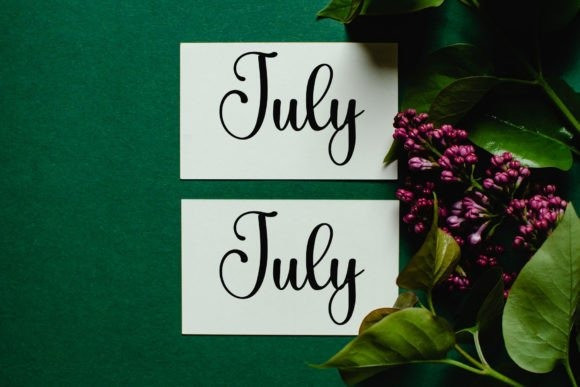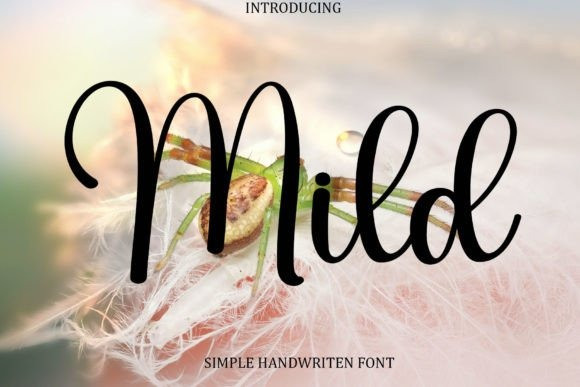
Mild Script Font
Mild Script Font, is a sweet and beautiful handwritten font. Featuring characters that dance along the baseline, this font will add a luxury spark to any design project you wish to create!